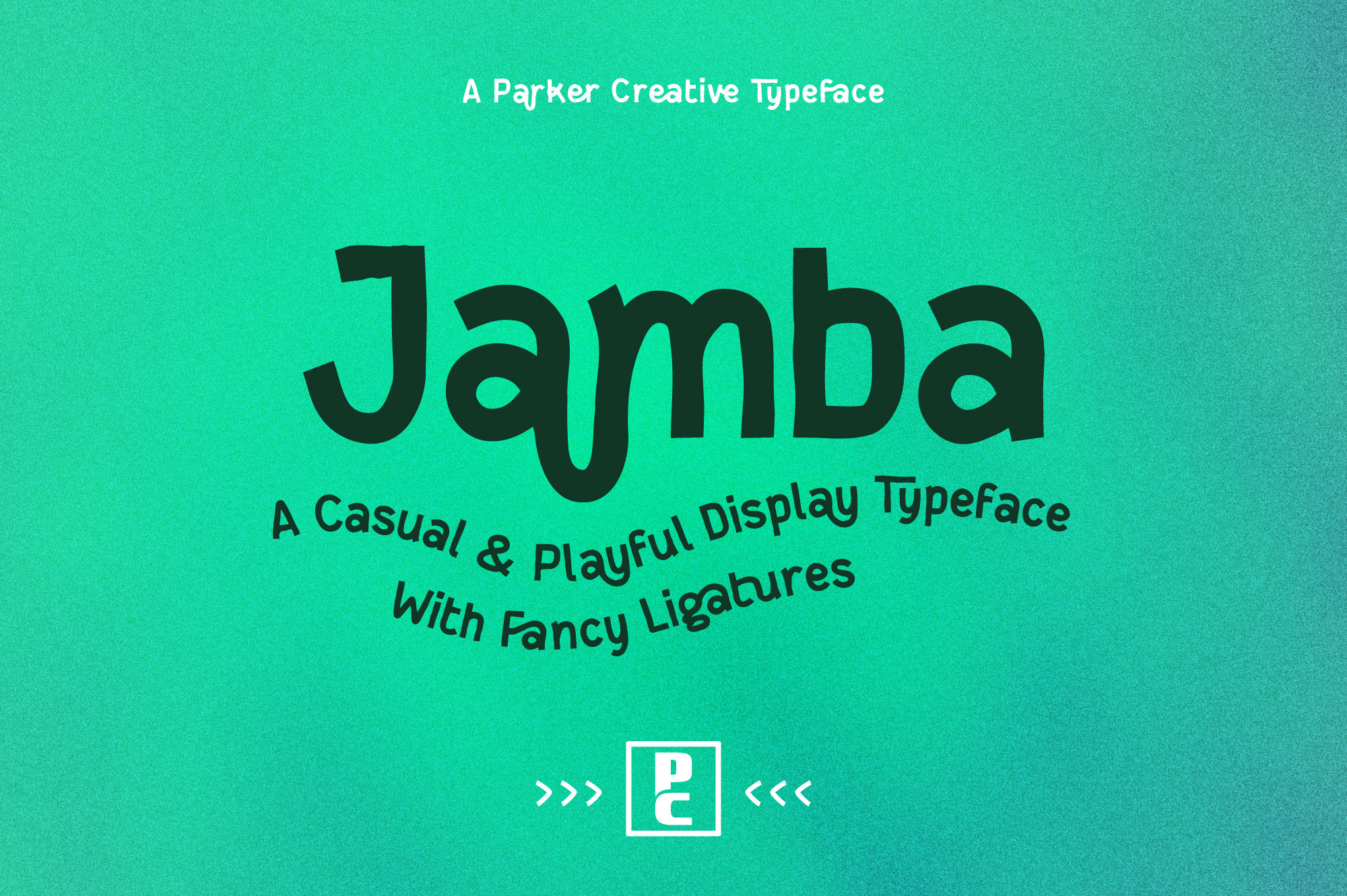
Jamba - A Casual Playful Font
Looking for a casual font that still makes a bold statement? Jamba hits that sweet spot.
Jamba is a playful and modern font designed to bring fresh, hand-drawn energy to your branding. With its rough edges and fancy ligatures, Jamba is the cool font your next project has been waiting for. Whether you’re building a hip restaurant concept, launching a health-focused brand, or shaping an eco-conscious business, Jamba’s laid-back style and organic personality fit right in.
Crafted as a hand-drawn font with an eye for detail, Jamba balances whimsy and structure, making it ideal for logos, menus, packaging, and more. Its playful characteristics add charm and approachability, while eye-catching ligatures and fluid strokes keep it feeling fresh and contemporary.
Jamba is ideal for:
- Organic and sustainable brands
- Modern cafés and farm-to-table restaurants
- T-shirts with clever slogans
- Event posters for street fairs and pop-ups
- Branded recipe cards
- Lifestyle blogs
- Eco-conscious app interfaces
- Fitness, wellness, and clean beauty products
- Youthful, vibrant startups
- Sustainable fashion labels
- Farmer’s markets and organic grocery branding
- Boutique hotels or eco-lodges
- Children’s book titles and headers